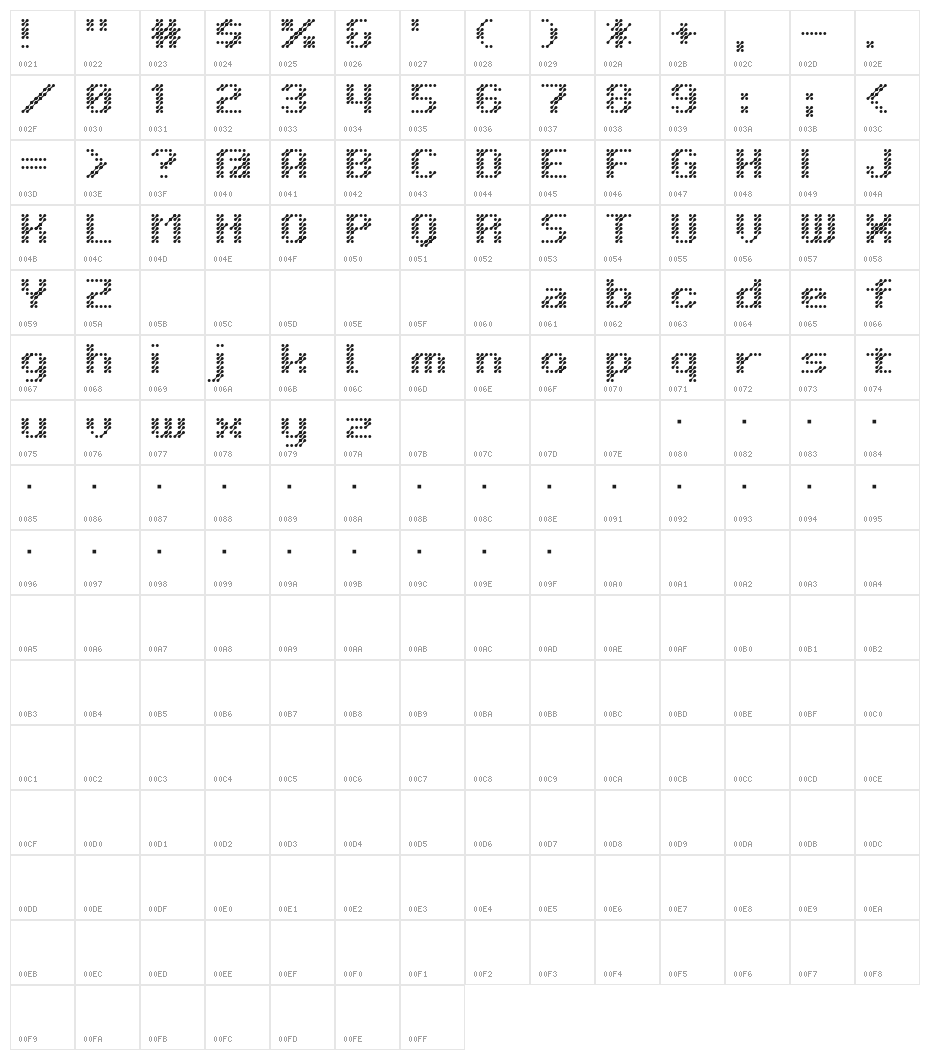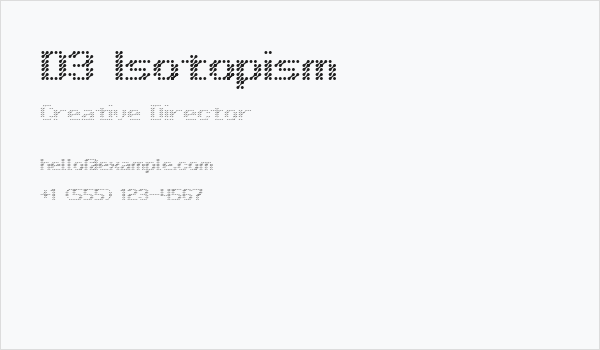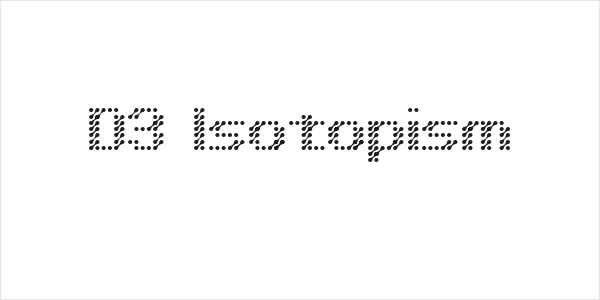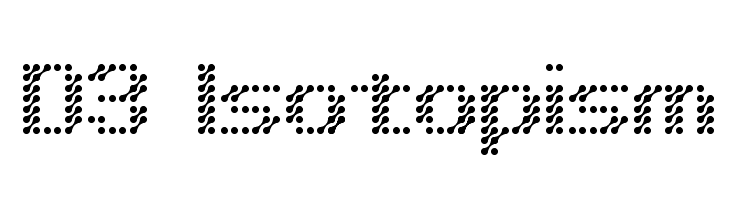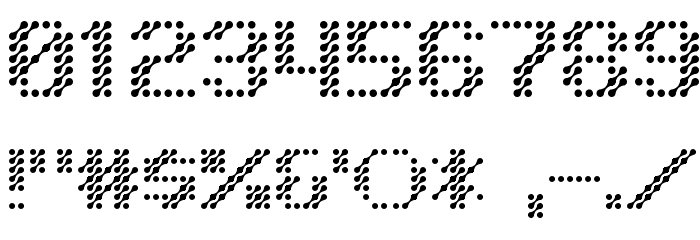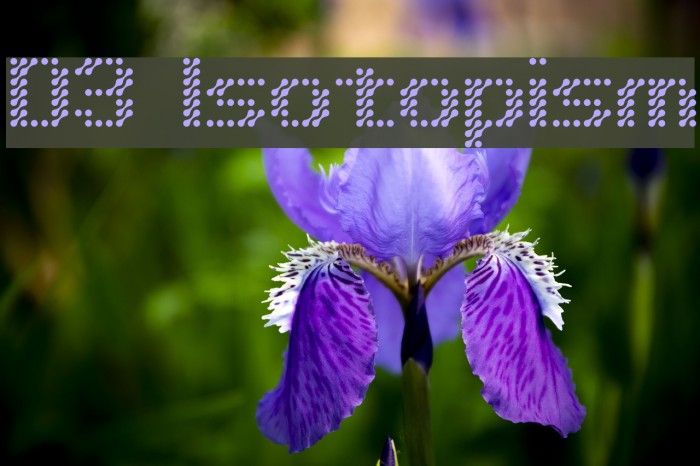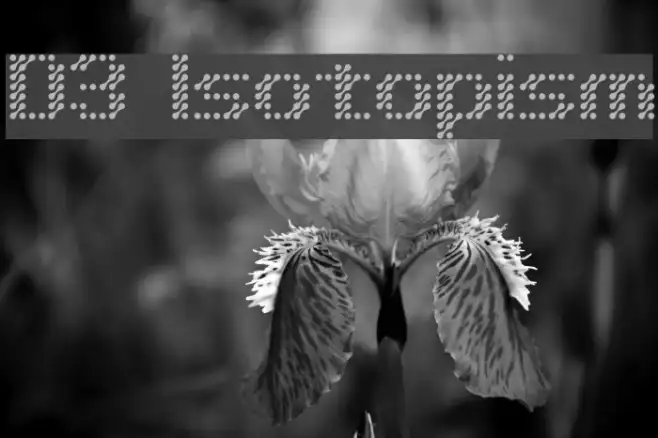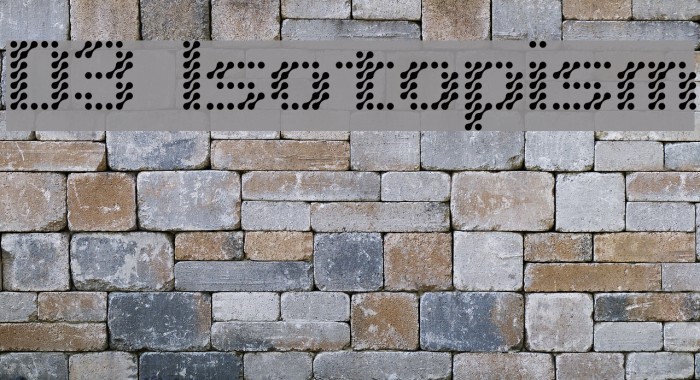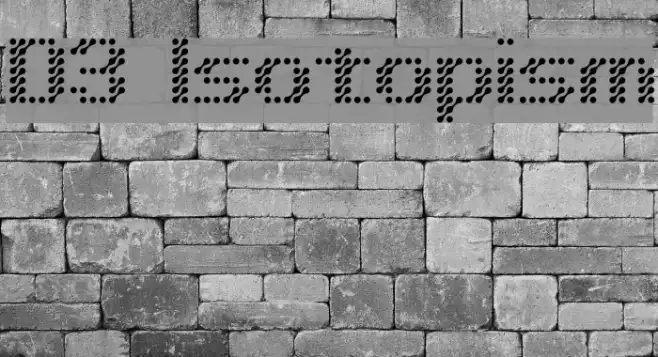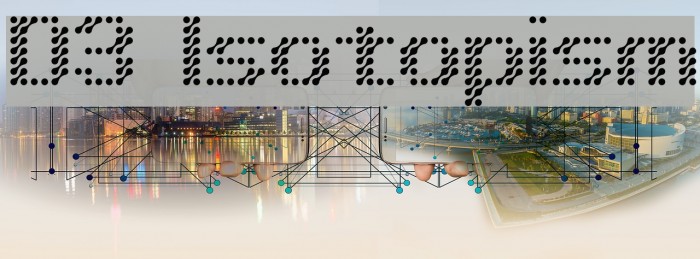
D3 Isotopism Font
D3 Isotopism Description
This font features a unique dotted design, where each character is composed of a series of small, evenly spaced dots. The style is both modern and playful, offering a distinct visual appeal that stands out in any design. The uppercase and lowercase letters maintain a consistent pattern, creating a cohesive look across the alphabet. Numbers and special characters follow the same dotted motif, ensuring uniformity throughout. This font's innovative approach makes it ideal for creative projects that require a touch of whimsy and modernity.
| Proposed Projects | Ideal for creative projects such as posters, digital art, and branding that require a modern and playful touch. |